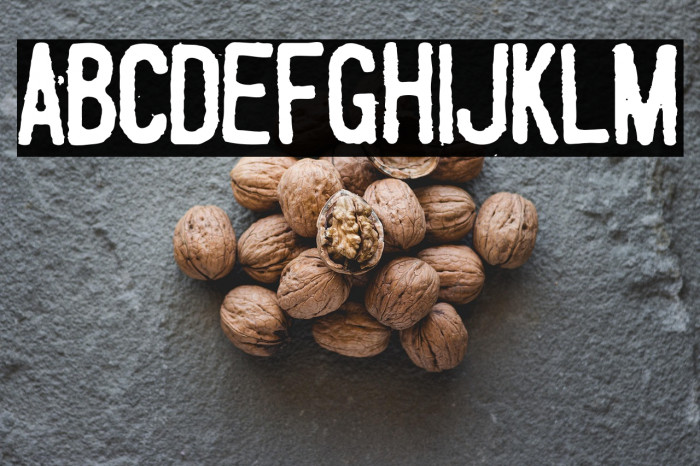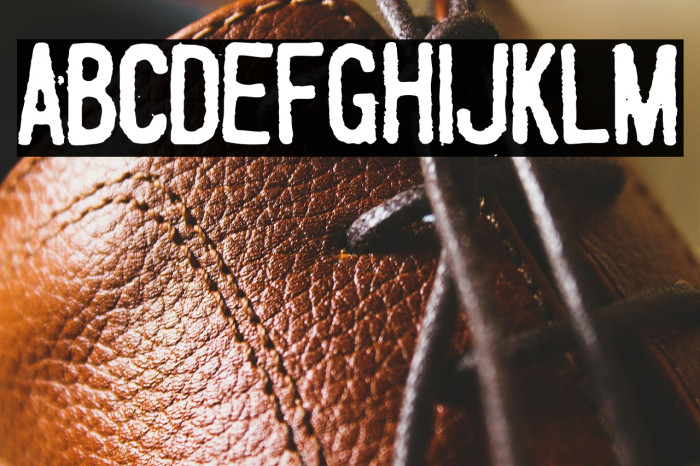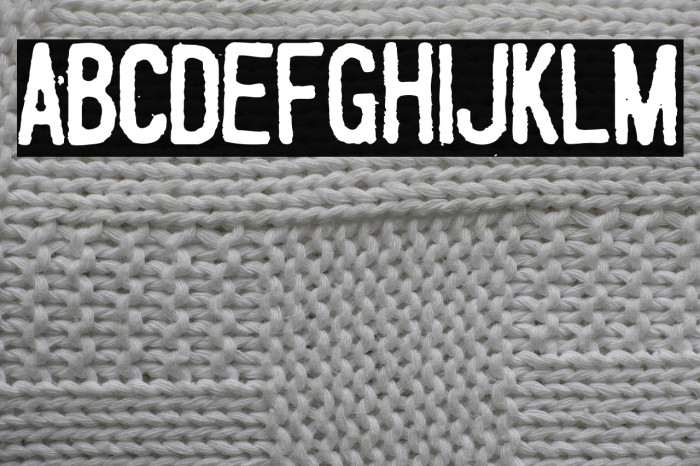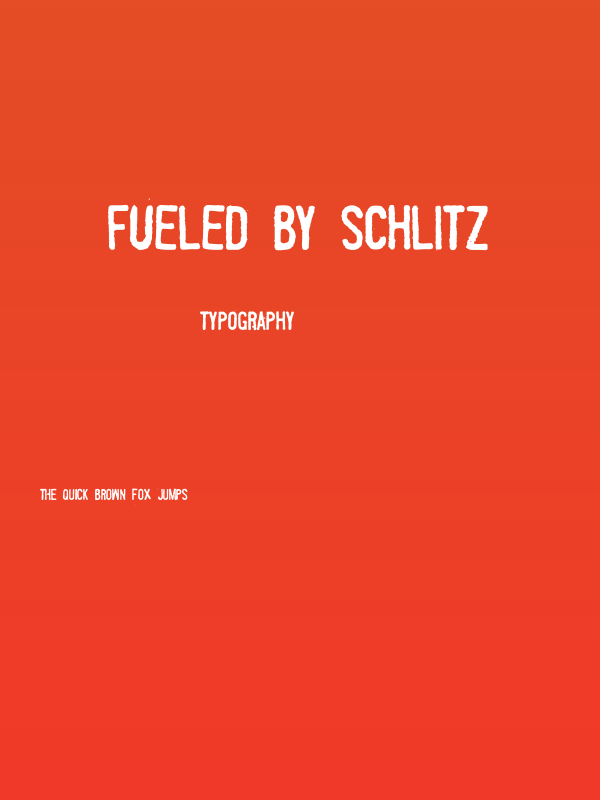
Fueled by Schlitz Font
Fueled by Schlitz Description
This font features a bold, distressed style with a vintage, hand-printed appearance. The characters are uppercase and have a slightly uneven texture, giving them a rugged, authentic feel. The numbers and special characters maintain this distressed look, adding to the overall aesthetic. The font's boldness and unique texture make it stand out, ideal for projects that require a strong, impactful visual presence. Its rough edges and irregularities contribute to a sense of nostalgia and authenticity, reminiscent of old signage or print materials.
Overall StyleVintage
Proposed ProjectsPerfect for vintage-themed posters, retro branding, and rustic packaging designs.